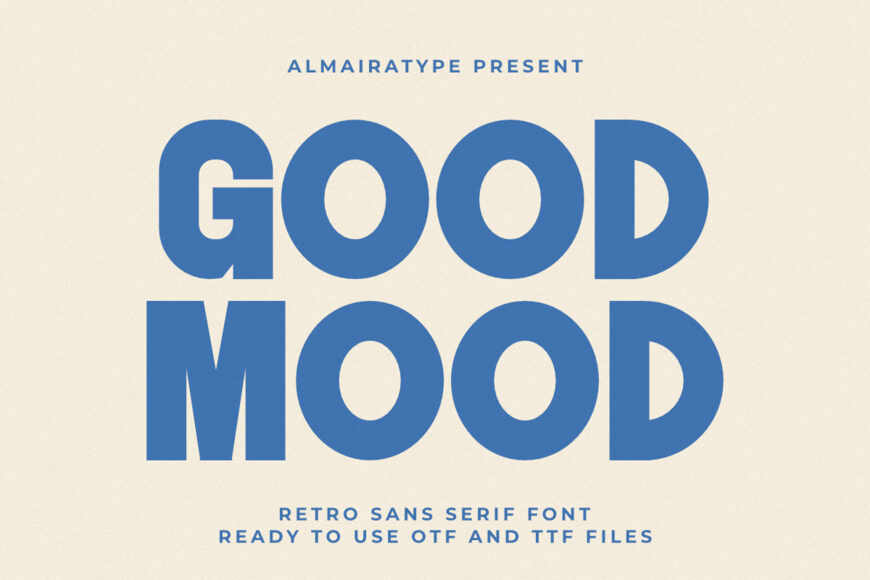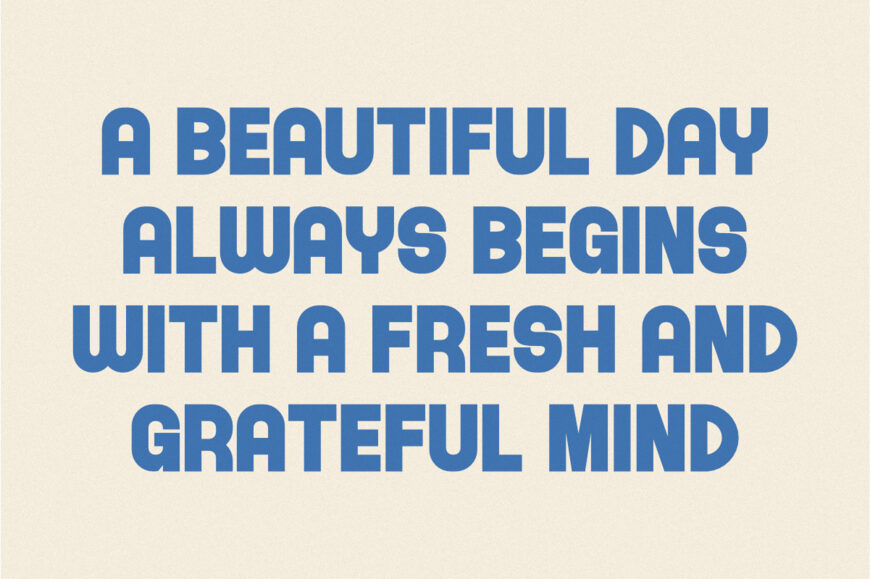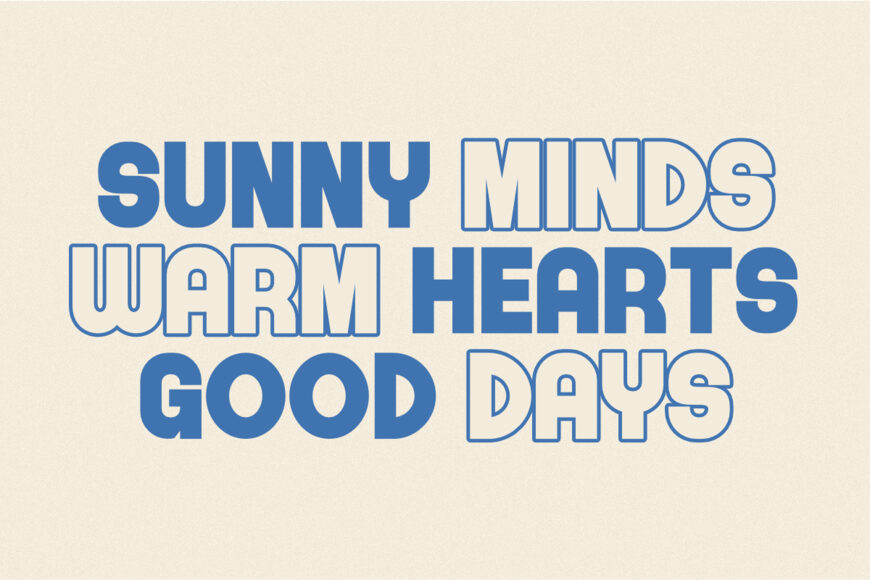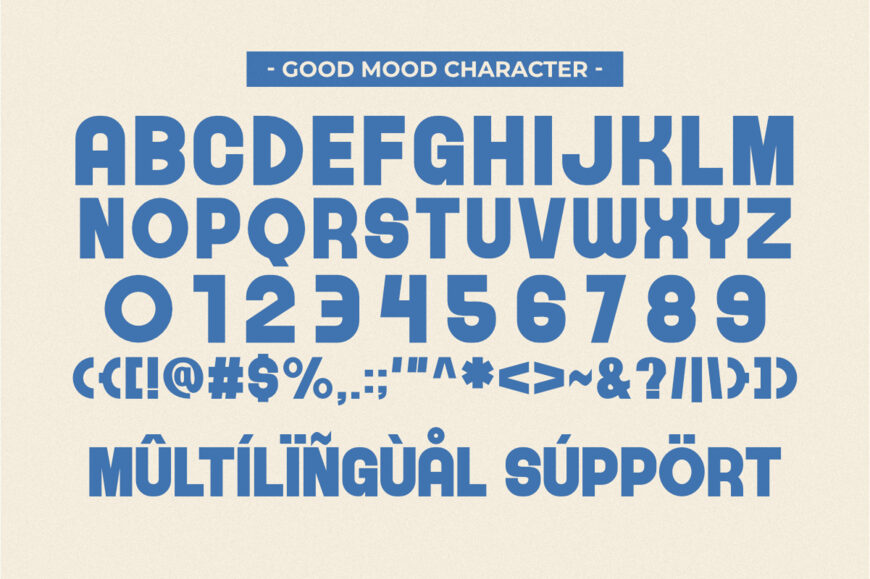
Make a bold, commanding, and delightfully nostalgic statement with Good Mood, an ultra-bold retro sans serif font engineered for creators who want their headlines to pop with a cheerful, confident charm.
Meticulously structured with a massive display weight, clean geometric baselines, and beautifully balanced circular shapes, this versatile font brings an instant blend of vintage lifestyle warmth and clean modern urban professionalism to any creative canvas.